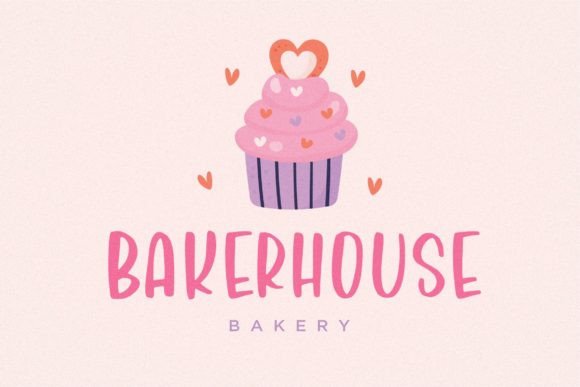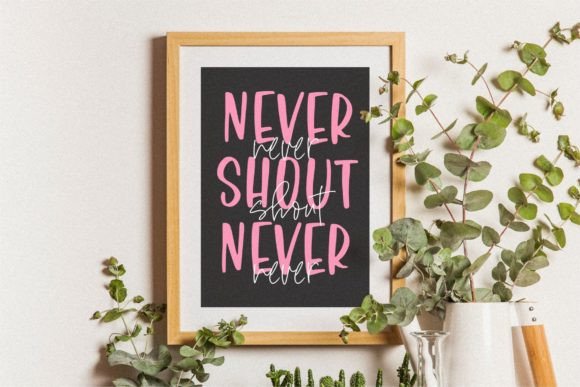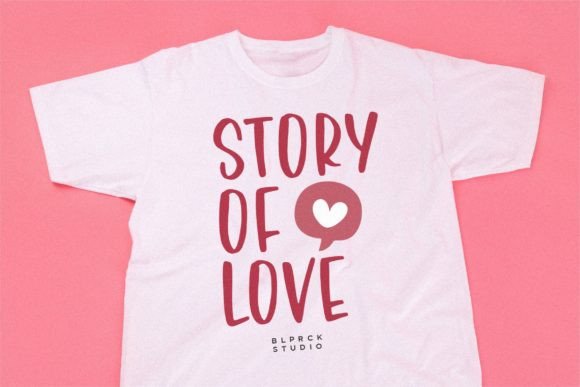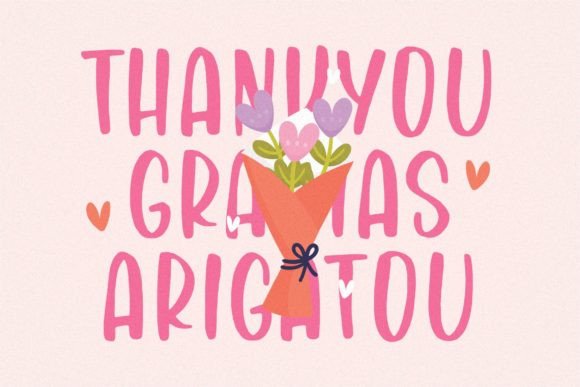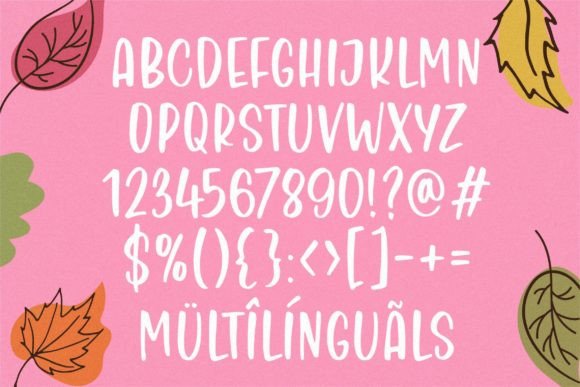
Introduction to Maple Glaze Font
Have you ever stumbled upon a font that instantly sparks creativity and makes you feel like a kid in a candy store? For me, that moment came when I discovered the Maple Glaze Font. I was working on a project, and I needed a font that would add a touch of warmth and friendliness to my design. As I scrolled through my font library, the Maple Glaze Font caught my eye with its beautiful, handwritten script.
| 👤 Author | Balpirick |
As a designer, I can attest that having a reliable design resource like the Maple Glaze Font is invaluable. Not only does it offer a high-quality, free download option, but it also provides a transparent background that makes it easy to work with. Whether you’re working on a creative project, crafting greeting cards, or designing presentations, this font has the potential to become your go-to design companion.
With its versatility and charming aesthetic, the Maple Glaze Font is sure to elevate any project, making it a valuable addition to any designer’s toolkit.
Key Features of Maple Glaze Font
- High-quality, unique design ideal for creative projects, such as invitations, posters, and social media graphics.
- Maple Glaze Font features a transparent background, making it easy to overlay on images or use as a design element.
- Includes multiple font styles, including bold and regular weights, providing versatility for various design needs.
- Designed with a high-resolution, pixel-perfect aesthetic, suitable for print and digital applications.
- Supports a wide range of languages, making it a valuable asset for designers working on international projects.
Honest Review: Maple Glaze Font
I recently had the opportunity to try out the Maple Glaze Font, and I must say, it’s been a game-changer for my creative projects. The free download was a bonus, and I was impressed by the high quality of the font.
What works well: ✨ The font is incredibly versatile and can be used for a wide range of design projects, from wedding invitations to food labels. The transparent background feature allows for seamless integration with any background image or color, giving me a lot of creative freedom.
Some limitations: ⚠️ The font only comes in one style, which might limit its use in certain projects. Additionally, the font file size is a bit larger than I’d like, which can impact loading times in web design projects.
Overall, I’m really impressed with the Maple Glaze Font. It’s a great addition to any designer’s toolkit, and I’d highly recommend it for anyone working on a creative project that requires a high-quality, customizable font.
- High-quality font with a transparent background
- Very versatile and can be used for a wide range of projects
The Maple Glaze Font is suitable for various creative projects, including wedding invitations, birthday cards, and social media graphics. Its high-quality design and transparent background make it a great resource for designers and non-designers alike.